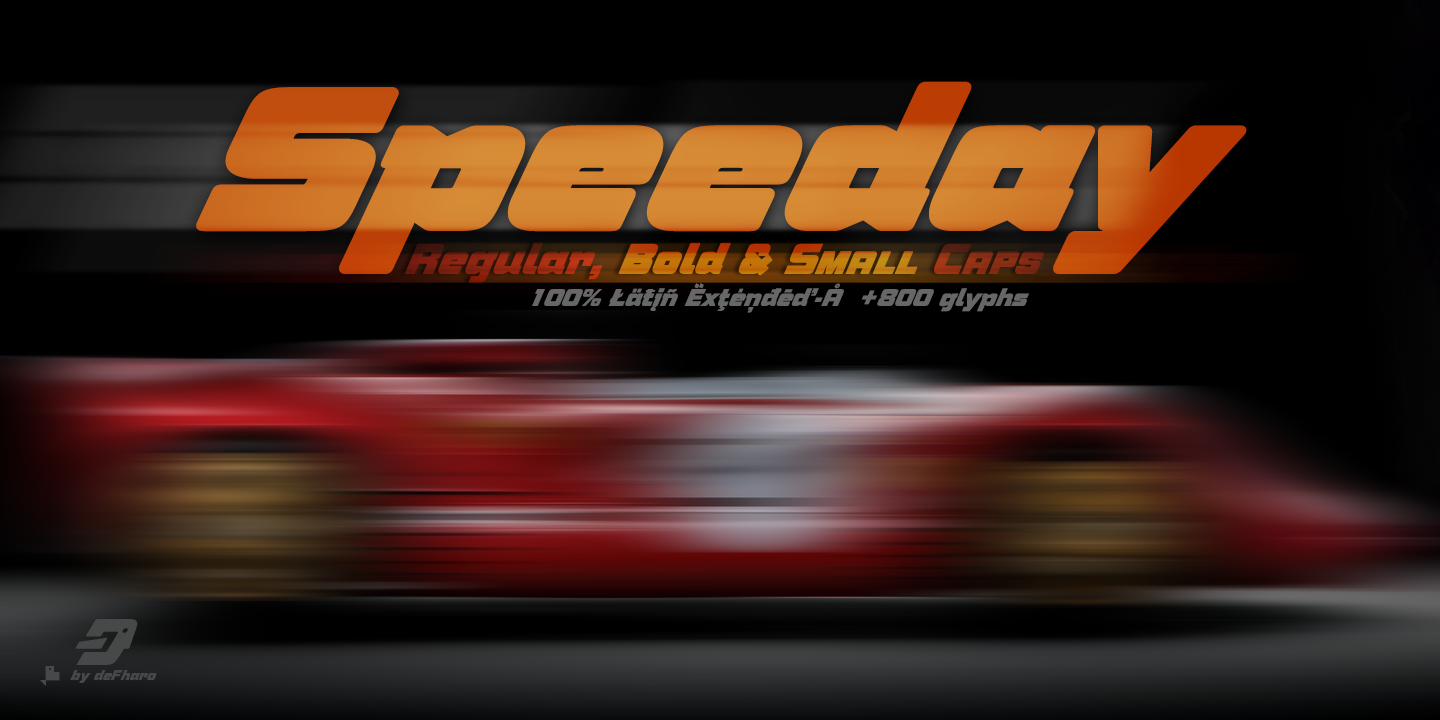
Unleash Your Designs with Speeday Font Free Download
This dynamic and assertive typeface is perfectly suited for a wide array of high-energy applications, including bold sports branding, thrilling event posters, action-packed video game titles, automotive-themed advertisements, impactful packaging for energetic products, and any project demanding a sense of swiftness and power. Its vibrant character ensures your message is delivered with undeniable impact.
What makes the Speeday Font so exciting? It perfectly encapsulates motion and velocity within its letterforms. This isn't just a font; it's a visual adrenaline rush. Its sharp angles and purposeful curves create a sense of forward momentum, instantly conveying speed, excitement, and innovation. Whether you're designing for a race, a fitness brand, or a tech startup, Speeday Font provides the perfect visual metaphor, making your text leap off the page or screen. It's the ideal choice for designers who want their typography to convey dynamism and a cutting-edge aesthetic.
The Speeday Font typically comes with a powerful and versatile family designed to give you maximum creative control. This often includes a range of weights such as regular, bold, and extra bold, allowing you to create a strong visual hierarchy. You'll also find various stylistic alternatives, including italic versions that enhance its sense of speed, and sometimes condensed or expanded widths for fitting different layout requirements. Some families may even feature alternative characters or ligatures that amplify its unique, futuristic appeal, ensuring a cohesive and impactful presence across all your design assets.